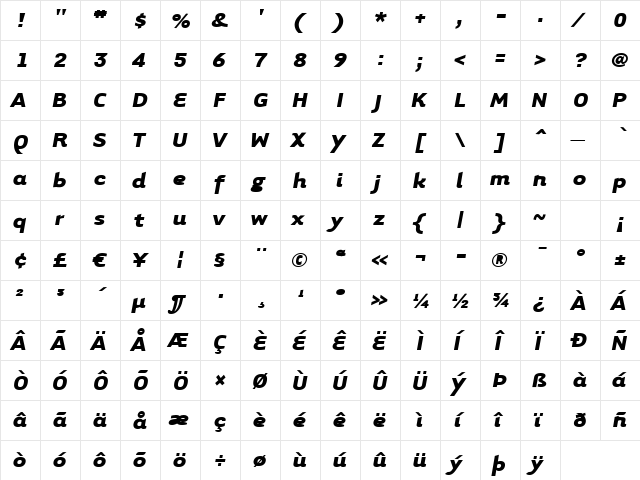
TarzanaWide Bold Italic
Design Context for TarzanaWide Typeface
TarzanaWide takes a measured approach to typography — its balanced proportions and neutral character make it a reliable workhorse for both digital and print work. The slanted form adds forward momentum and visual energy. The heavy weight commands attention and anchors typographic hierarchies.
Pro Tip: Use TarzanaWide for emphasis, pull quotes, and subheadings where its slanted energy can add rhythm to the layout.